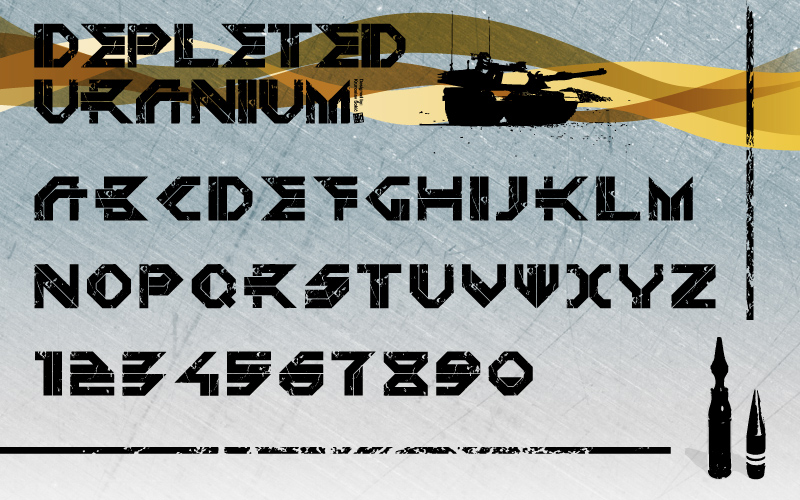
Note by model850 | |
...press Shift + letter for letter to become solid instead of eroded, and add texture of your choice...;) ...feel free to use and share...(: |